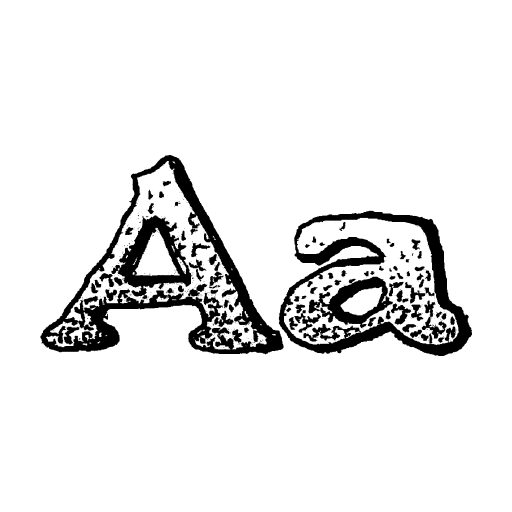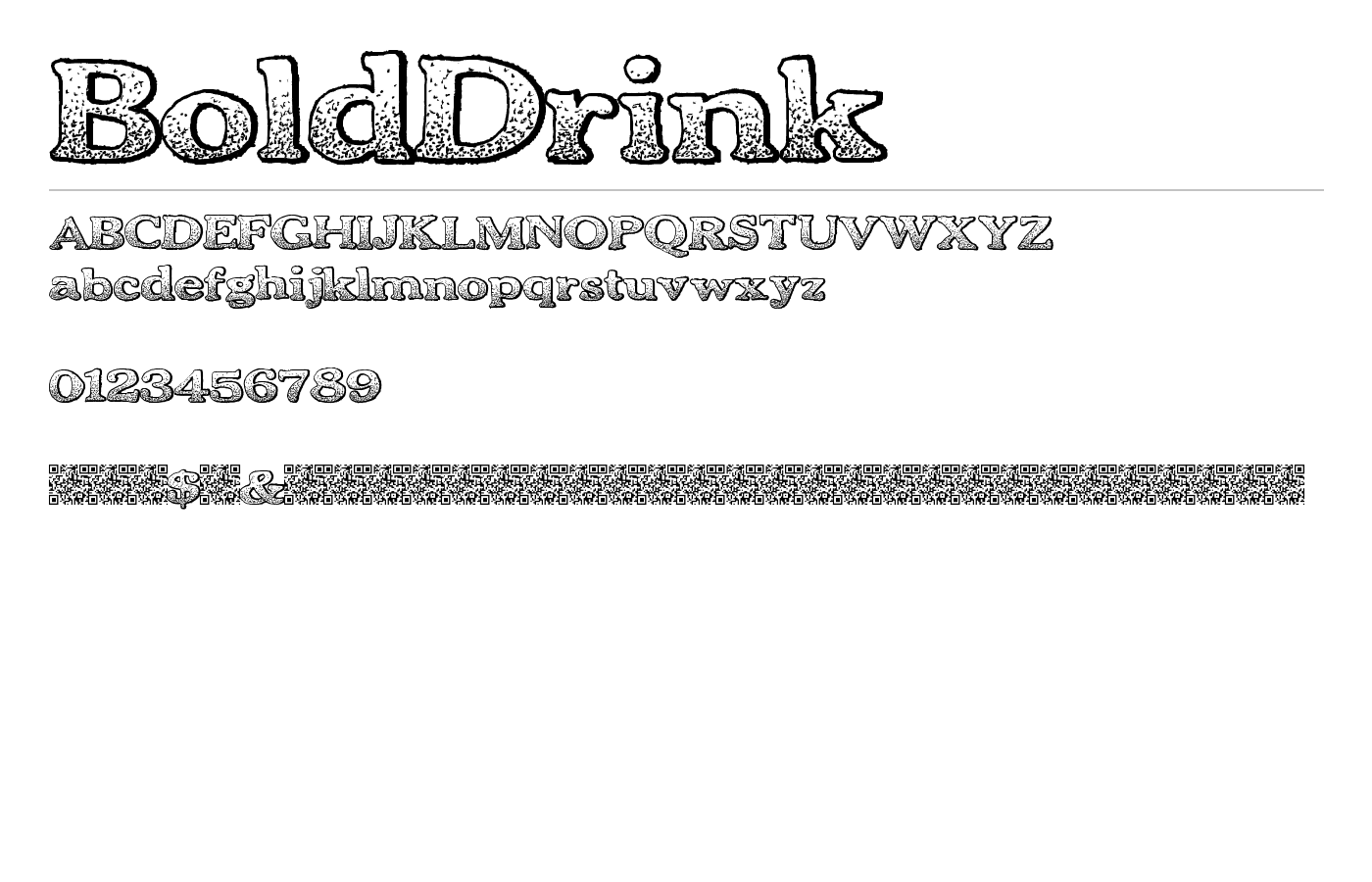
BoldDrink is a textured slab serif font with a strong, vintage character and a distressed, hand-crafted feel. Its bold weight, rough edges, and playful imperfections make it ideal for designs that want to evoke a rustic, retro, or artisanal vibe, perfect for branding, packaging, and headlines that need a bold yet friendly statement.
BoldDrink Font
About BoldDrink Font